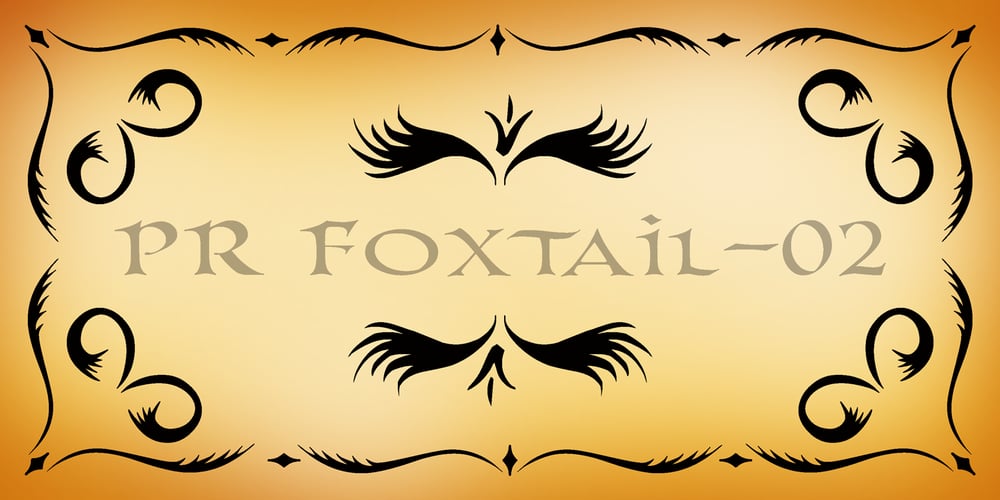
PR Foxtail 02 Font Family was designed by Peter Rempel and published by PR Fonts. PR Foxtail 02 contains 1 styles and family package options. The bushy weed commonly known as foxtail provides the inspiration for this set of ornaments, and reveals its connection to the prairies. The appearance has an affinity to cowboy themed work.